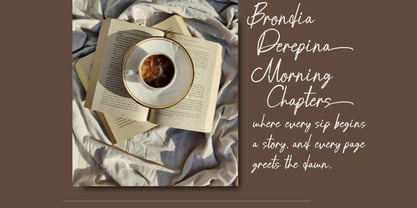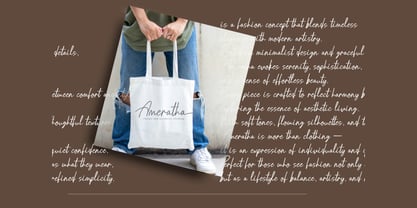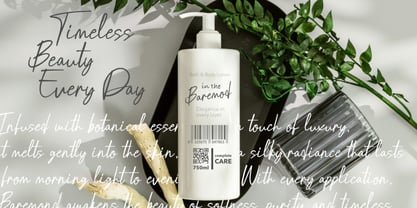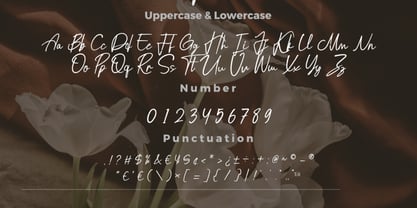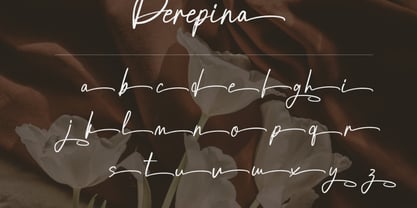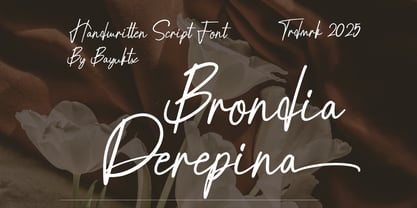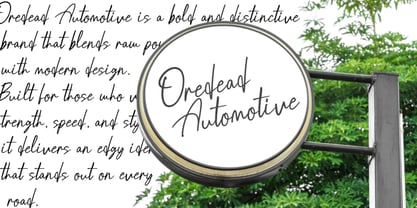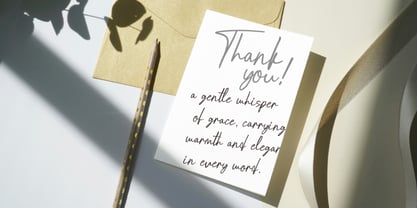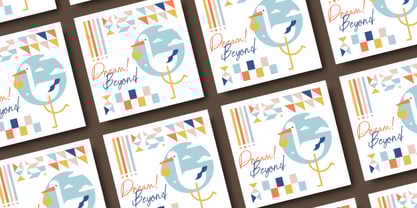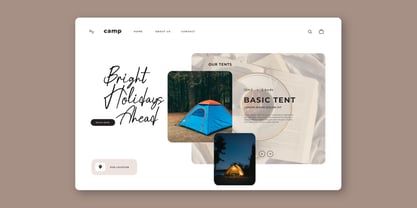
Brondia Derepina
by Bayuktx
The Brondia Derepina Font Family was designed by Bayu Aji Fais Mursid and published by Bayuktx. Brondia Derepina contains 1 styles. More about this family
Brondia Derepina Handwritten Script Font Brondia Derepina is a stylish handwritten script font with elegant curves and natural flow. Perfect for branding, invitations, packaging, and social media, this font adds a feminine, modern, and timeless touch to any design. Key Features : * Uppercase & Lowercase Letters * Numerals & Punctuation * Multilingual Support * PUA Encoded & OpenType Features Bring elegance and personality to your projects with Brondia Derepina Handwritten Script Font.
Designers: Bayu Aji Fais Mursid
Foundry: Bayuktx